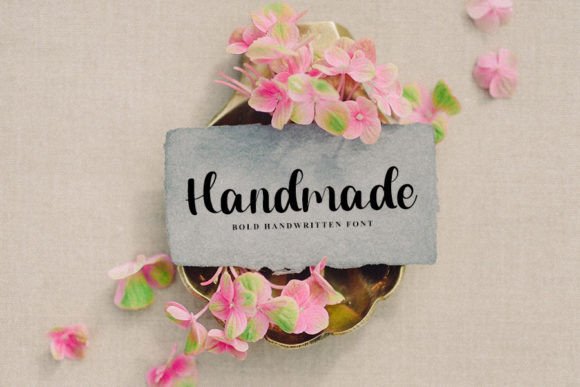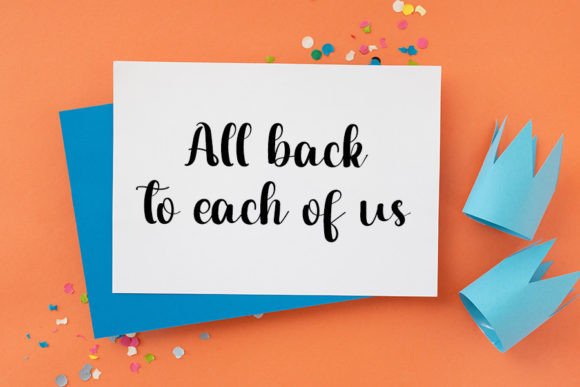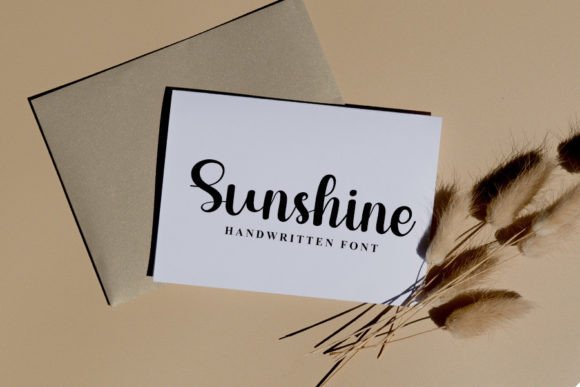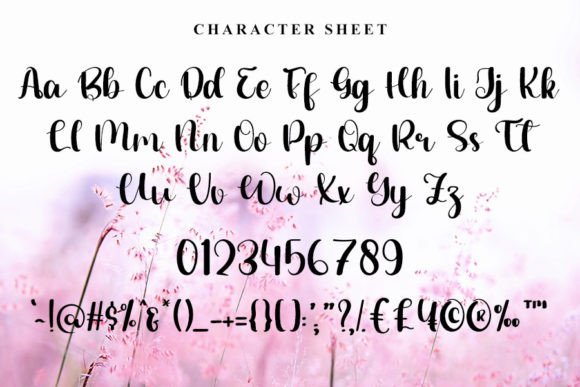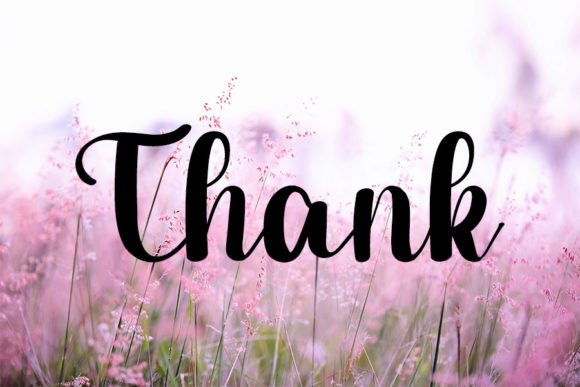
Humble Font
About Humble Font
**Humble Font: A Timeless Elegance**
Introducing the **Humble Font**, where neatness meets beauty, and elegance is timeless. This handwritten font is not just a typeface; it’s an embodiment of refined simplicity, making it the perfect choice for your favorite projects. Fall in love with its distinct style, and let it elevate your designs to spectacular heights.
**Neat and Beautiful:**
The Humble Font is a testament to the beauty found in simplicity. Its clean lines and well-crafted characters give your designs a polished and organized appearance. Whether used for digital or print projects, the neatness of this font shines through, ensuring readability and visual appeal.
**Timeless Elegance:**
In the ever-evolving world of design, elegance that withstands the test of time is a rare find. The Humble Font, with its timeless style, brings a touch of classic sophistication to your creations. It’s not just a trend; it’s a design companion that remains relevant and captivating.
**Distinctive Charm:**
The distinctiveness of the Humble Font lies in its handcrafted charm. Every letter, stroke, and curve is created with an artistic touch, giving your projects a unique and personal feel. It’s this touch that sets your designs apart, making them truly special.
**Versatile in Creativity:**
From invitations to branding, social media posts to product packaging, the Humble Font adapts seamlessly to a variety of creative projects. Its versatility makes it a go-to choice for designers who appreciate the flexibility of a font that complements diverse design needs.
**Fall in Love:**
Designed to evoke admiration, the Humble Font invites you to fall in love with the art of typography. Its aesthetic allure isn’t just visual; it’s a feeling—a connection with the essence of design. Immerse yourself in the beauty of Humble and let your creativity soar.
Embrace the beauty of simplicity, the allure of elegance, and the distinctive charm of the Humble Font. It’s more than just letters on a canvas; it’s an expression of creativity that resonates with those who appreciate the art of design.